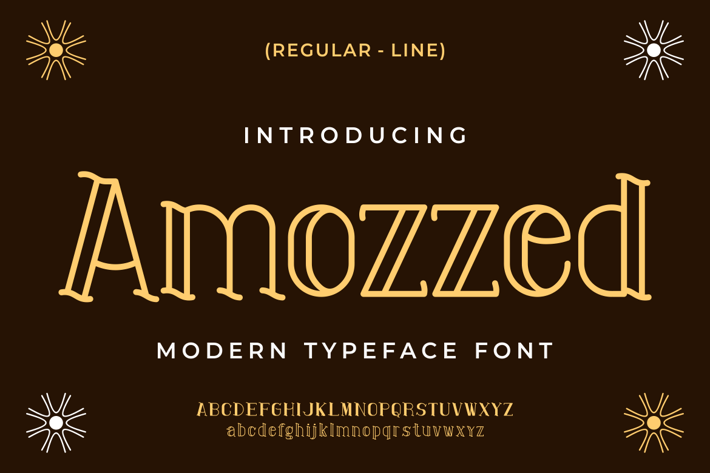
Amozzed Font
Introducing our new product Amozzed Font - Modern Font
Amozzed Font - Modern Font is a bold and authentic display font. The font is suitable for any branding project like logo, t-shirt printing, and many more. outstanding in a wide range of contexts.
Style Font
Reguler
Line